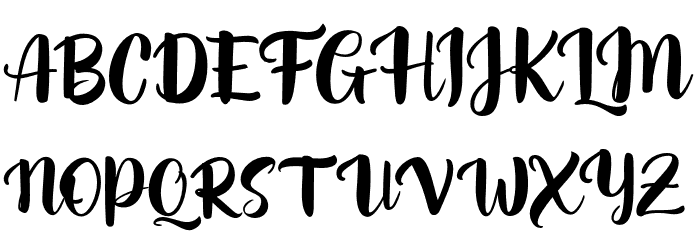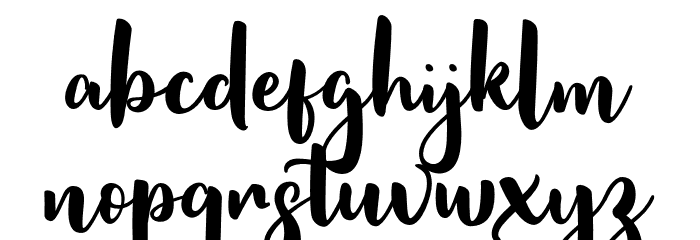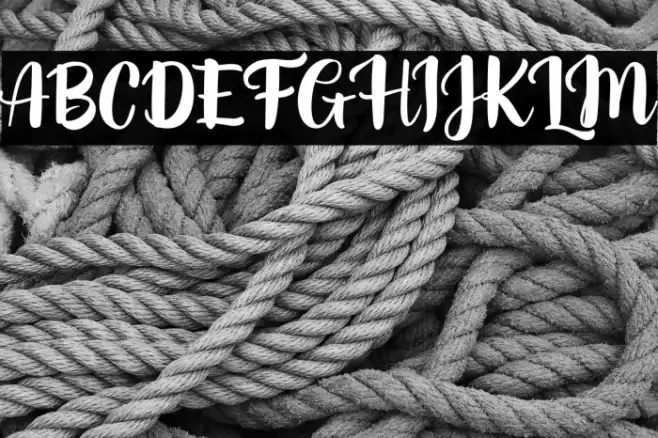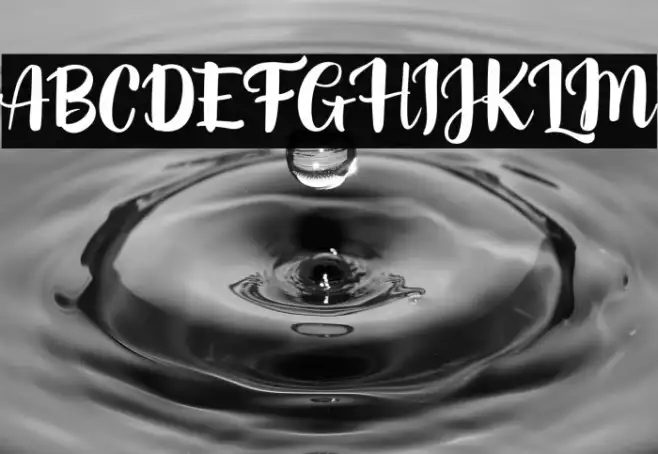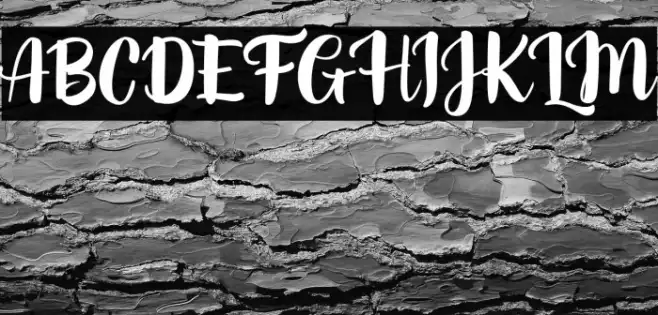
LindseyFREE Font
This font features a flowing, cursive style with elegant, sweeping strokes that give it a handwritten appearance. The uppercase letters are bold and dynamic, with distinctive loops and flourishes that add a touch of sophistication. The lowercase letters maintain a consistent style, with smooth connections between characters, enhancing the script's fluidity. The overall design is both playful and refined, making it suitable for a variety of creative applications. The font's boldness ensures readability while maintaining an artistic flair.
A bold, cursive script with elegant, flowing strokes and playful flourishes.
- Font: LindseyFREE
- Proposed Projects: Ideal for wedding invitations, greeting cards, branding, and logo design where a personal, elegant touch is desired.
- Category: Script
- Use Case: Logos, Headlines, Invitations